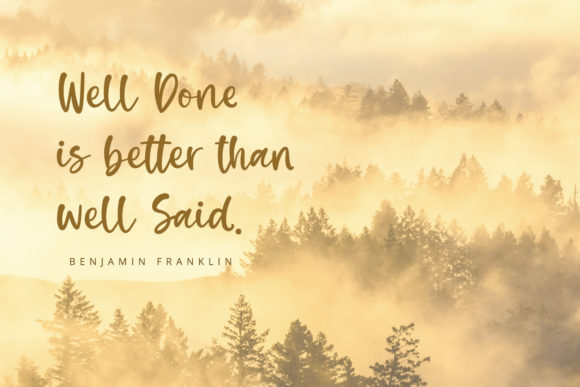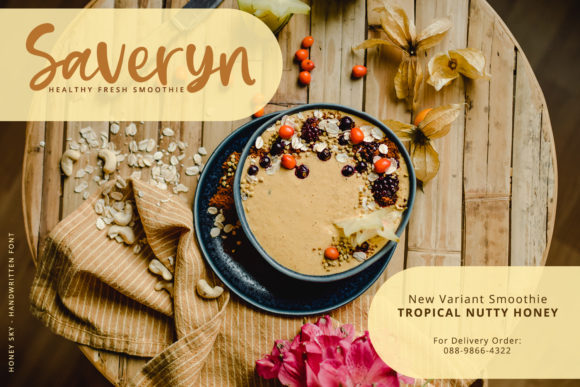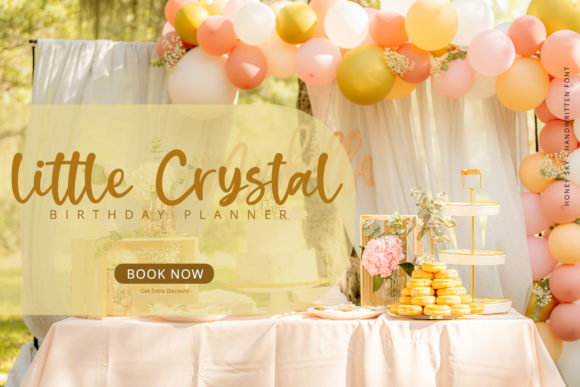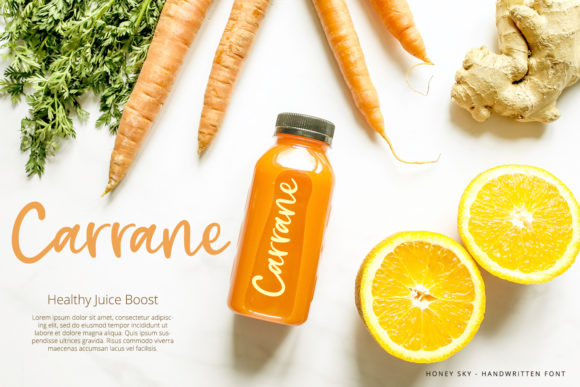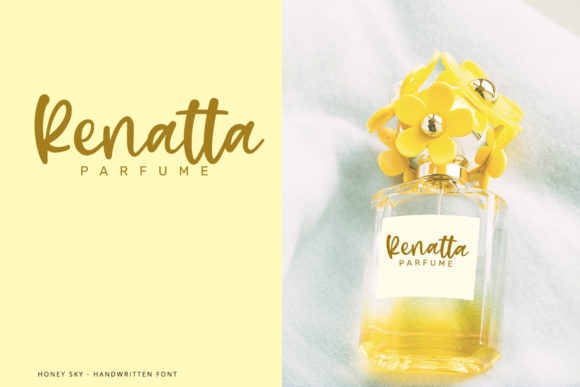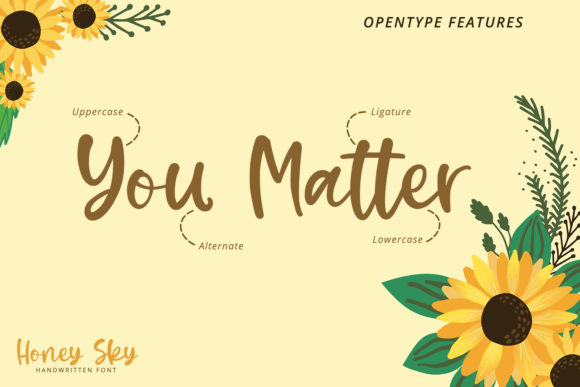
Introduction to Honey Sky Font
Have you ever stared at a blank canvas, waiting for inspiration to strike? For designers, those moments are what make the creative process so thrilling. As you begin brainstorming ideas for your next project, you want a design resource that truly sets the tone – something that feels approachable, yet sophisticated. That’s where the Honey Sky Font comes in, a trendy and friendly handwritten font that’s perfect for branding, product packaging, and so much more.
What sets Honey Sky Font apart is its versatility and high quality. With a transparent background, you can seamlessly integrate it into your design without worrying about visual clutter. And the best part? It’s available for free download, making it an invaluable resource for any creative project. Whether you’re working on a logo, invitation, or t-shirt design, Honey Sky Font is sure to bring a touch of warmth and personality to your work.
- Designed with a unique, modern aesthetic, perfect for adding a touch of elegance to any creative project.
- Perfect for use in digital and print design, including logos, typography, and branding materials.
- Exclusive to this font is its unique, hand-drawn style, making it stand out from other fonts in its class.
Honest Review: Honey Sky Font
I recently came across the Honey Sky Font and I’m excited to share my thoughts on it. As a designer, I’m always on the lookout for high-quality design resources that can elevate my creative projects.
- Beautiful, cursive script font that’s perfect for titles and headings.
- High-quality design that’s suitable for both print and digital use.
- The font is not suitable for use with transparent backgrounds, as the design may appear fuzzy or distorted.
- It’s not a versatile font for body text, as it can be difficult to read at smaller font sizes.
Overall, I’m impressed with the Honey Sky Font’s unique design and high-quality appearance. While it has some limitations, it’s a great addition to any designer’s toolkit, especially for creative projects that require a touch of elegance. With a free download, it’s a must-have for designers looking to elevate their designs.
The Honey Sky Font is a high-quality, free download design resource ideal for creative projects. This font features a transparent background, making it perfect for use on various backgrounds and designs.
The Honey Sky Font is suitable for a variety of creative projects, including logos, branding materials, and marketing materials. It’s also a great choice for designing invitations, posters, and other promotional materials.
Yes, the Honey Sky Font is designed to work well with transparent backgrounds. Its high-quality design and crisp lines ensure that it will look great even when used on a transparent background in your design project.